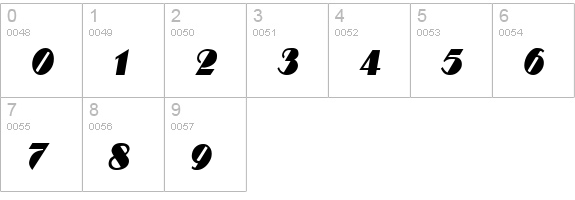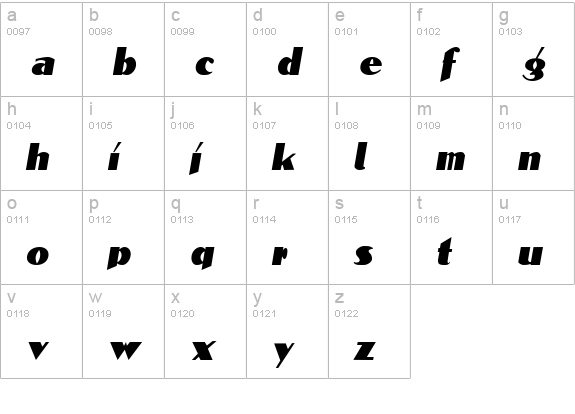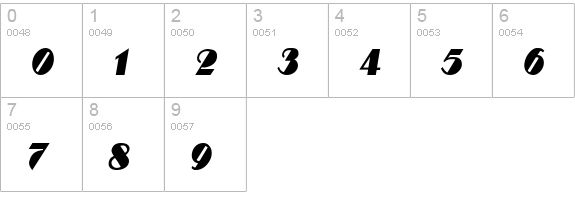
BlockCalligraphyCondensed Italic Font Details
BlockCalligraphyCondensed Italic is a distinctive, italic variant in the BlockCalligraphyCondensed typeface family \xE2\x80\x94 well suited to design and typography projects.
BlockCalligraphyCondensed Italic font is a stunning display typeface that exudes elegance and sophistication. Its unique calligraphic style adds a touch of class to any design project, making it perfect for branding, logos, invitations, and more. This font features a condensed italic design that is both contemporary and timeless, making it versatile for a wide range of applications. The flowing strokes and delicate curves of the letters create a sense of movement and fluidity, adding a dynamic element to your designs. What sets BlockCalligraphyCondensed Italic font apart is not only its aesthetic appeal but also its accessibility. This font is available for free download at FontsMarket.com, allowing you to easily incorporate it into your design projects without any cost. Whether you are a professional designer or a casual enthusiast, this font is a valuable addition to your creative toolkit. Experience the beauty and versatility of BlockCalligraphyCondensed Italic font today and elevate your designs with its unique charm and style. Download it for free at FontsMarket.com and unleash your creativity with this elegant and captivating typeface.